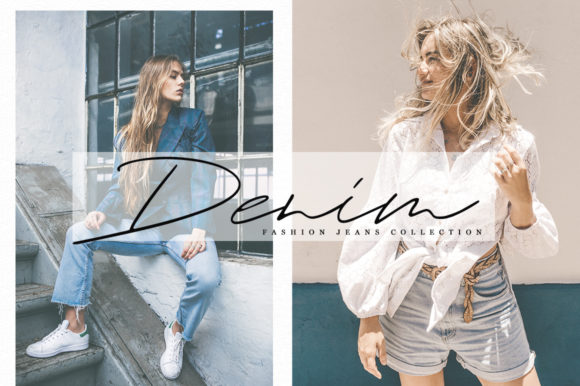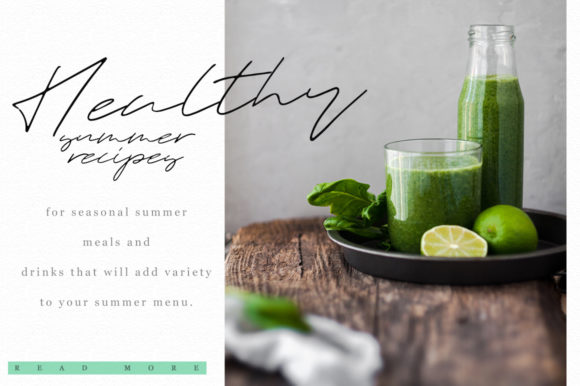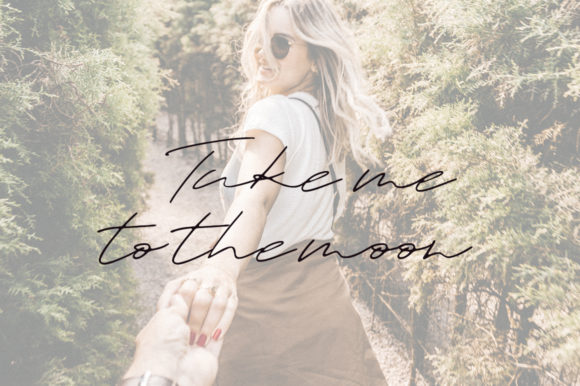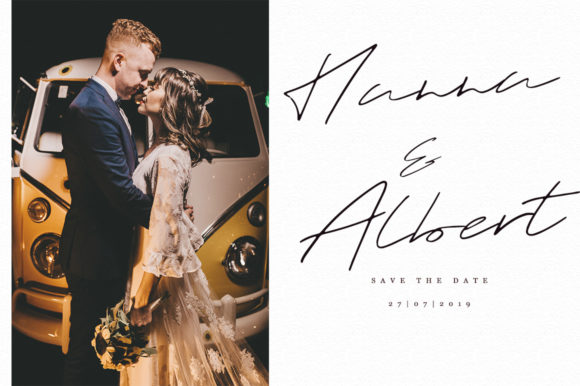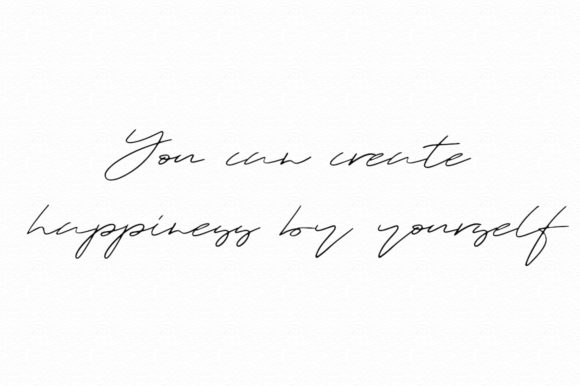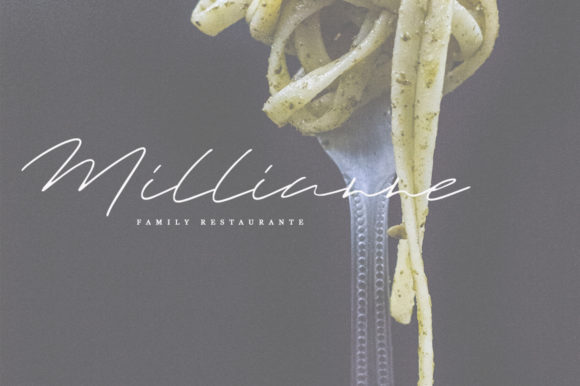
Introduction to Jedha Font
Jedha is an incredibly light and effortless font with a beautiful, organic vibe.
Get inspired by its authentic charm, and turn any creative project into a stand out .
Jedha Font offers exceptional quality and versatility, making it a valuable addition to your design toolkit. Whether you’re creating for personal projects or commercial use, Jedha Font delivers professional results.